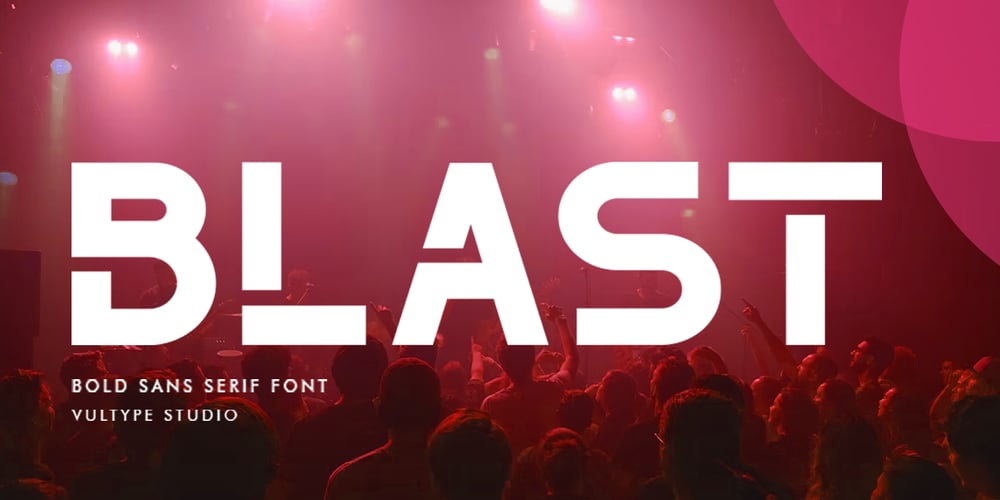
The Blast
The Blast font
The Blast Font Family was designed by Candra Hamdani and published by Vultype Co. The Blast contains 1 styles and family package options. Blast is a font with a futuristic edge, geometric corners, perfect for technology theme. As with its Blast, Blast makes a strong impression in print, headlines, video, and social media – whether paired with a contrasting typeface or on its own.